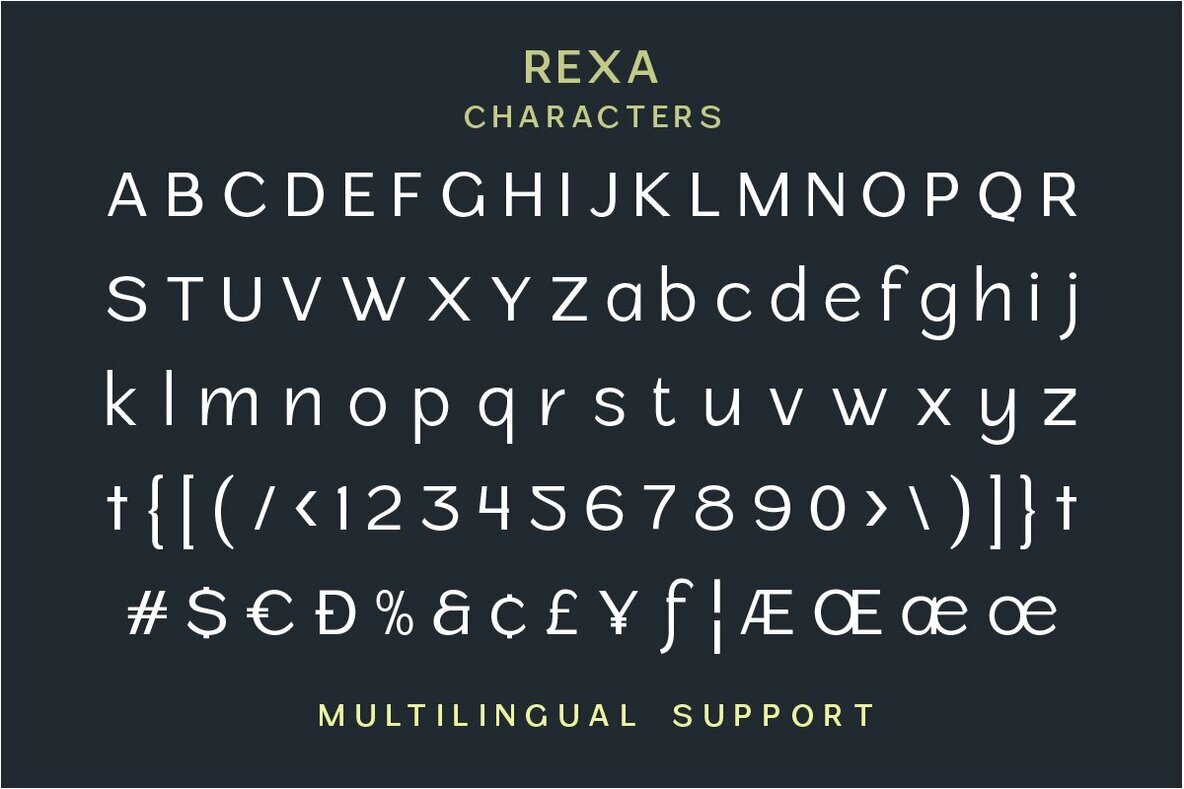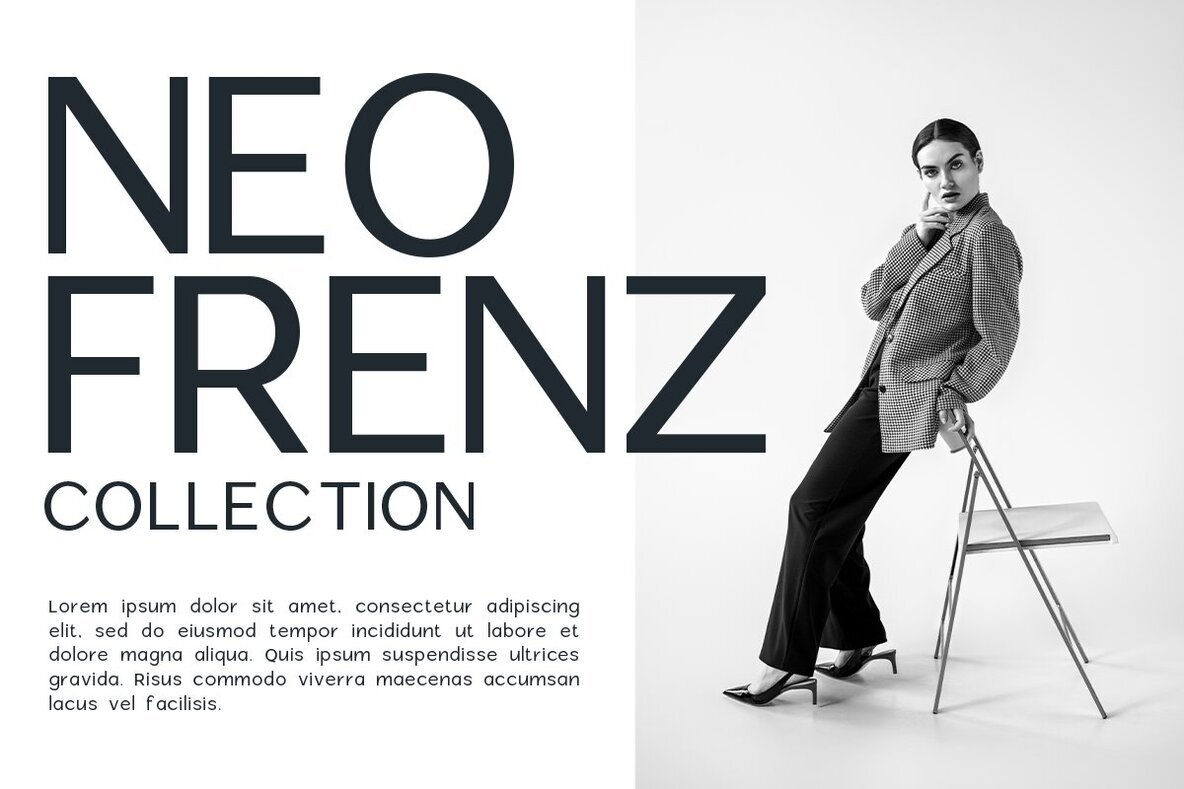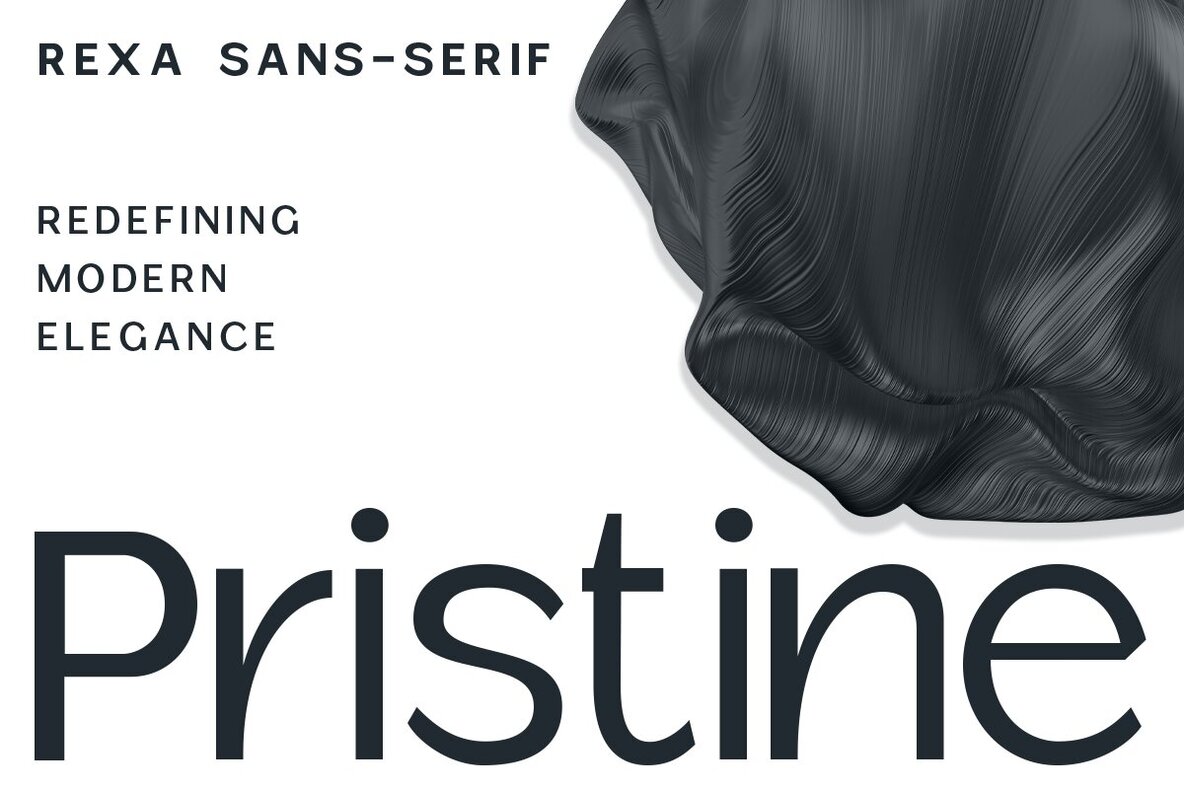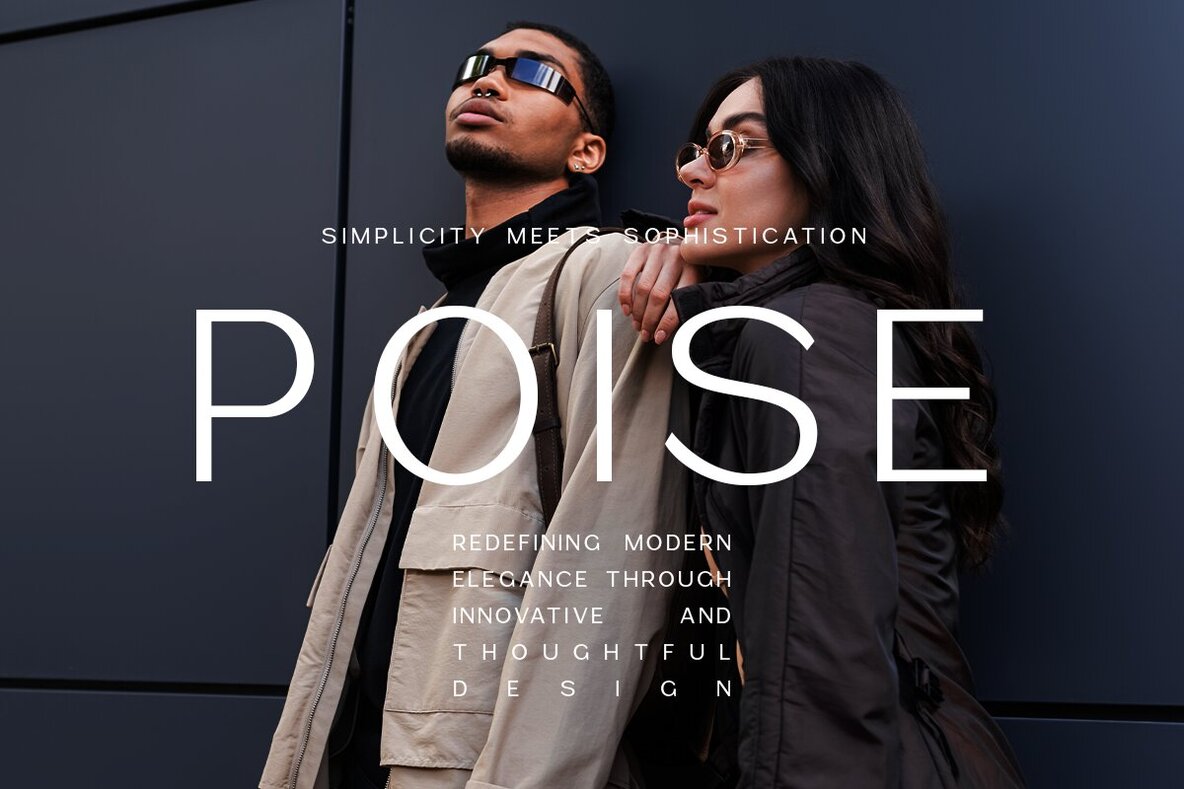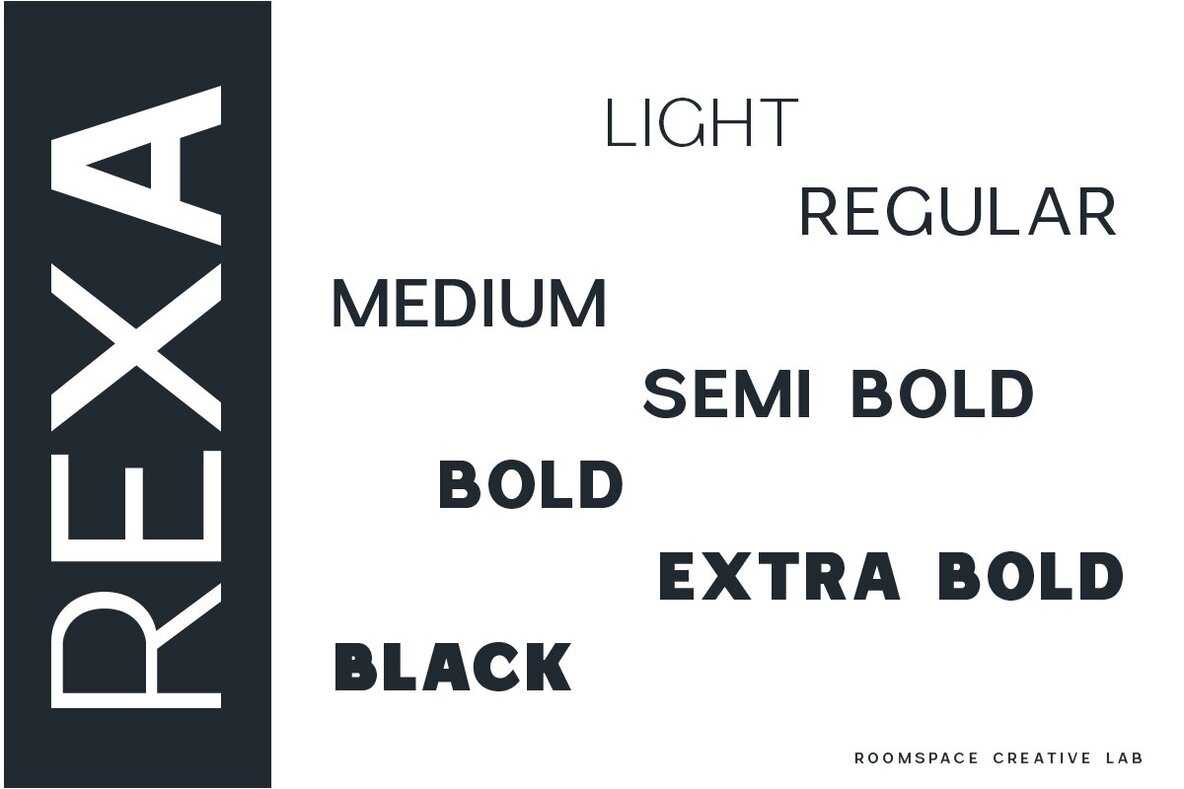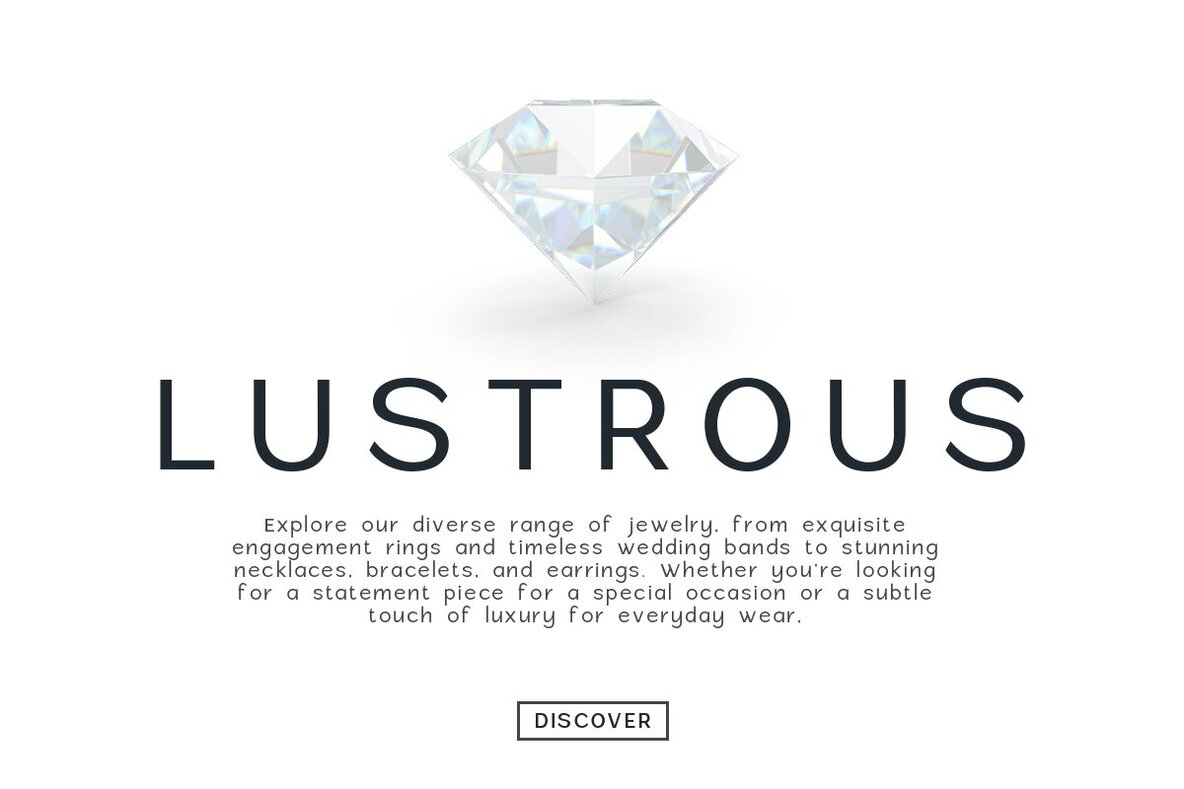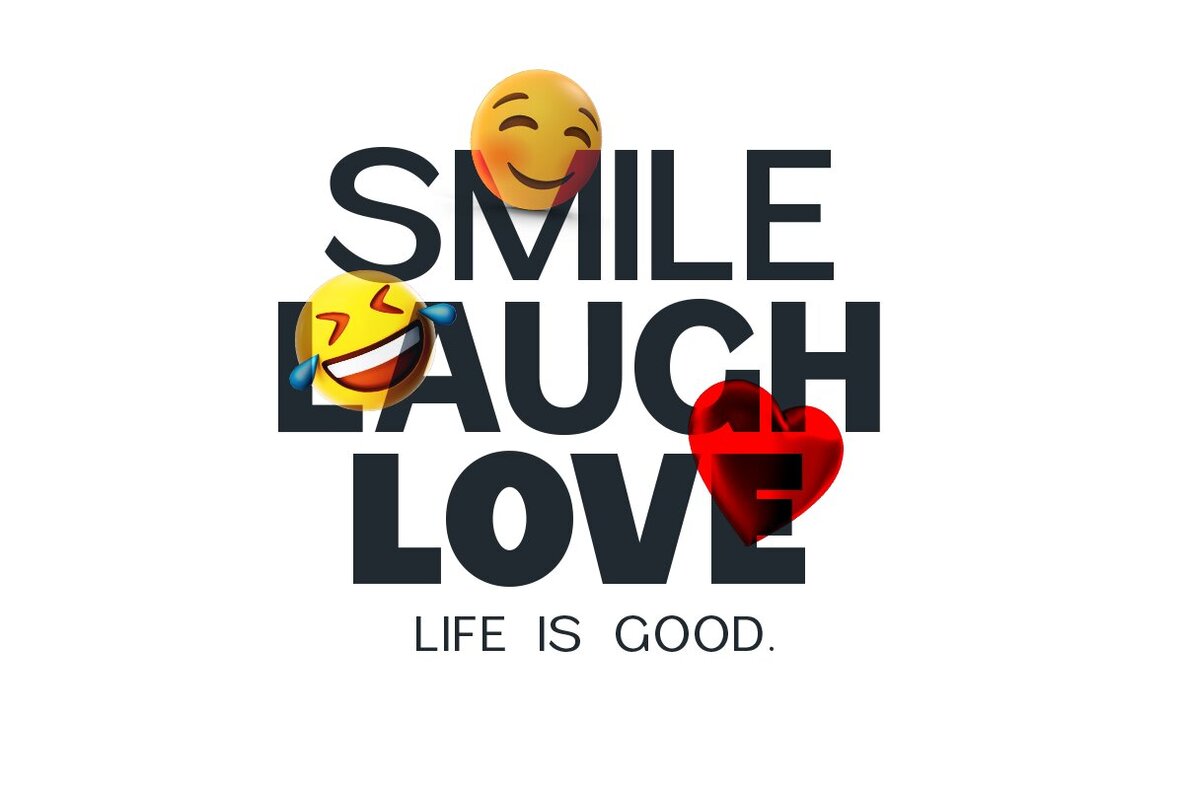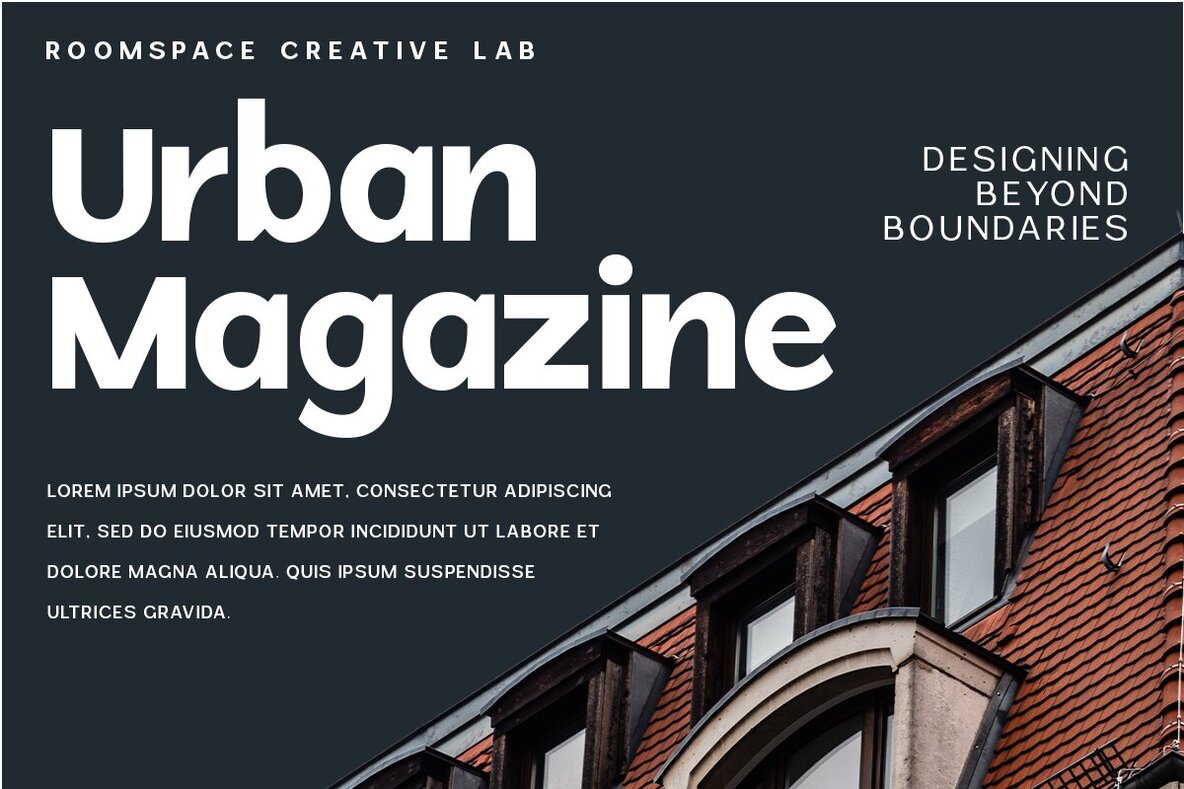
Rexa Font
Rexa Sans Serif Typeface, meticulously crafted by Roomspace Creative Lab to meet the diverse needs of today's designers. Rexa is a modern sans-serif font family that combines sleek aesthetics with unparalleled versatility. With 7 distinct weights, Rexa offers a comprehensive solution for any design project, whether you're working on branding, editorial layouts, web design, or print materials.